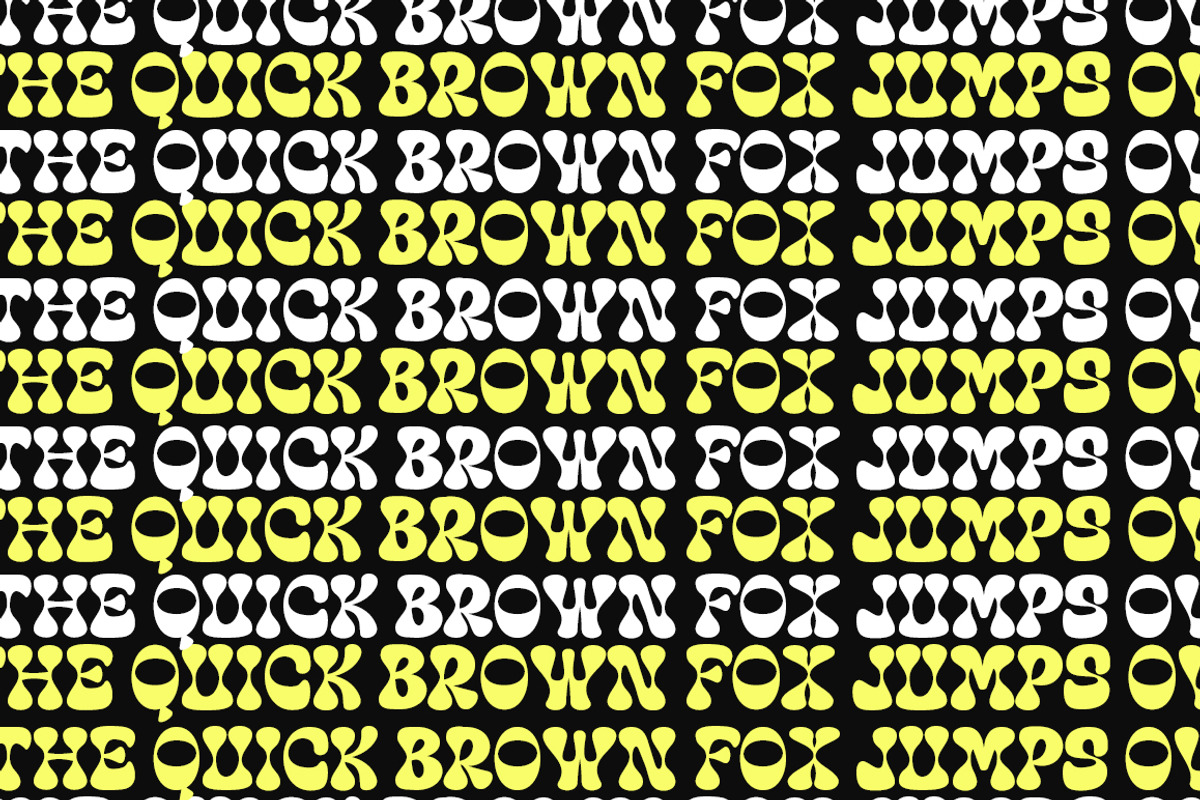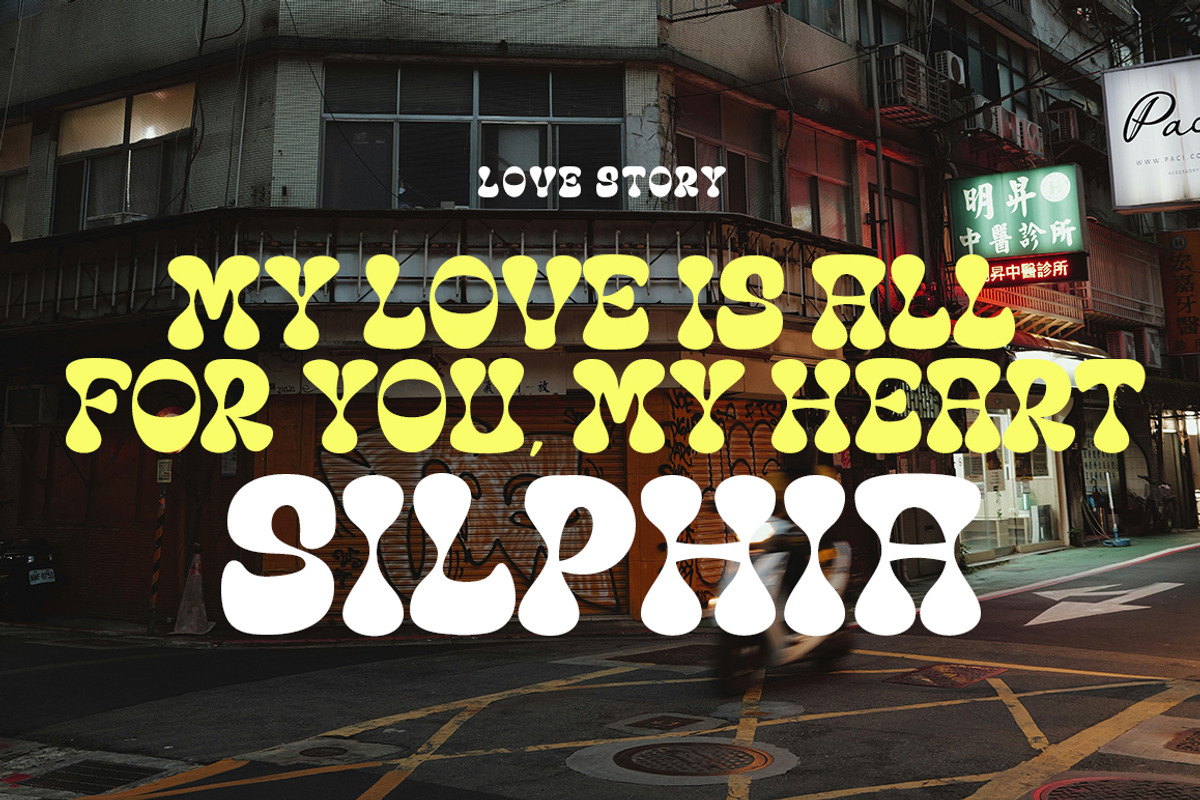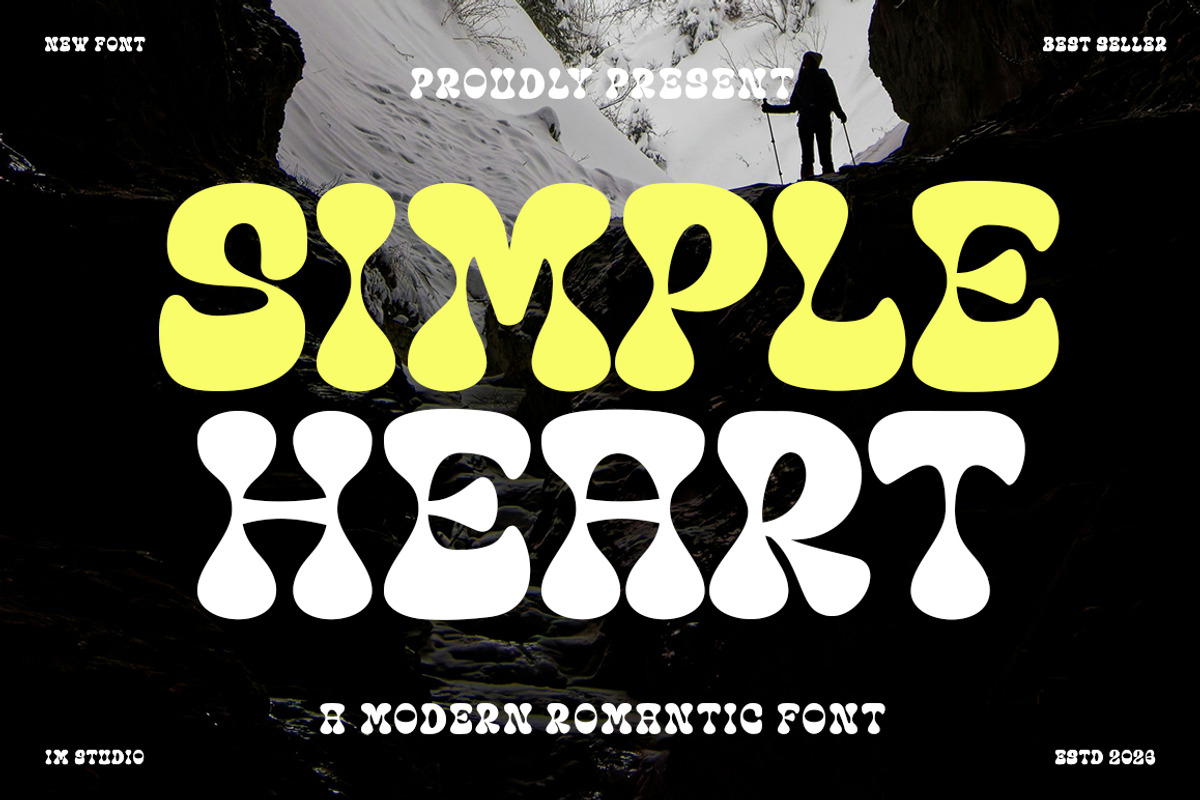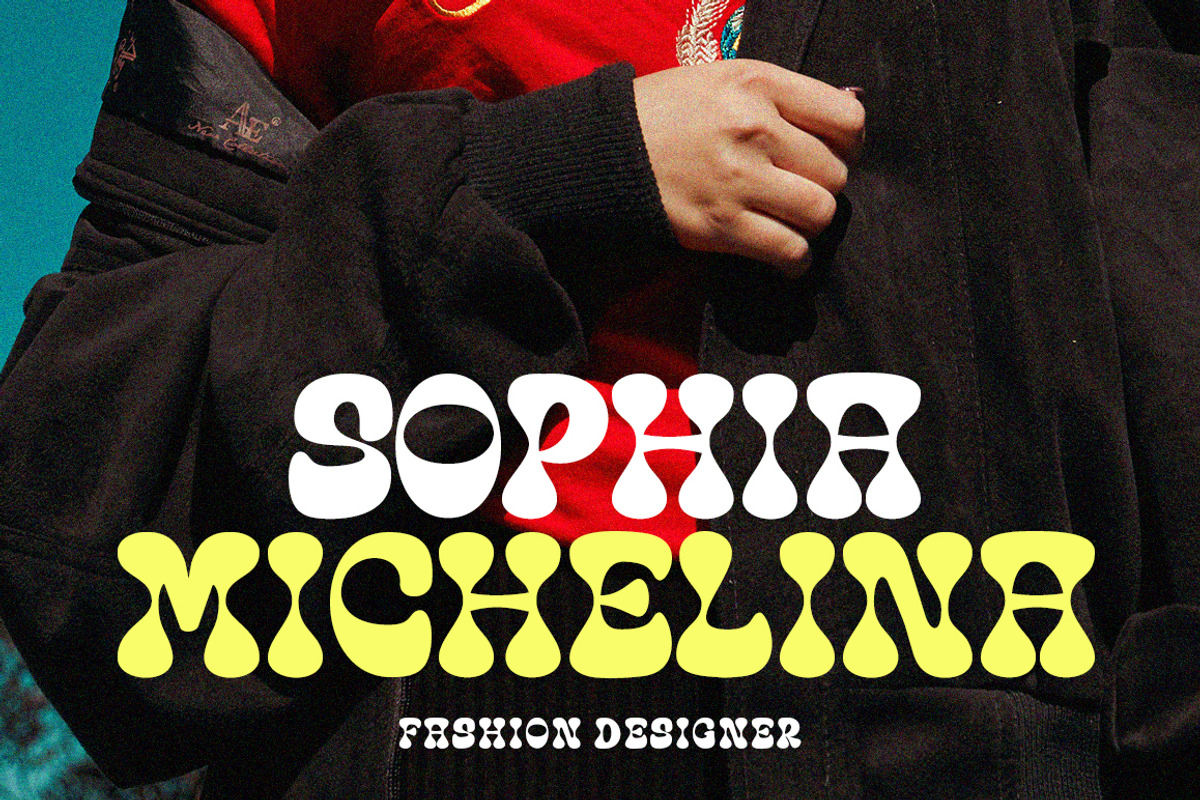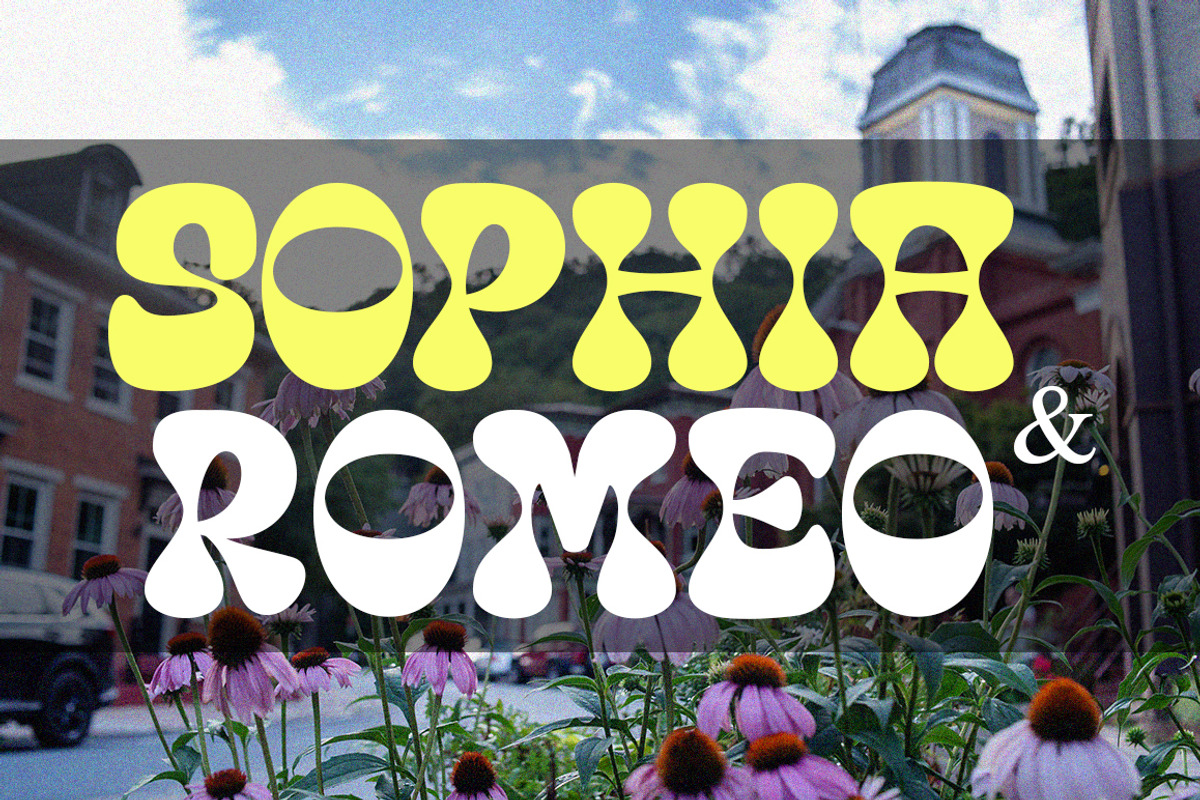
Simple Heart
Introducing Simple Heart – a daringly bold retro display font that radiates a cosy, festive allure. Its impressively robust structure blends effortlessly with tender curves and spirited ligatures to create a lasting visual impact. Whether it’s expressing love on Valentine’s Day, evoking homely charm for Thanksgiving, or lending a vintage appeal to clothing lines, Simple Heart works wonders. Its strikingly fresh and nostalgic charm also makes it an excellent choice for an unforgettable event poster. With its playful, vintage-inspired aesthetic, Simple Heart is a brilliant addition to any seasonal design project, merchandise endeavor, or 70s-themed design, making every creation not just eye-catching, but soulfully memorable.